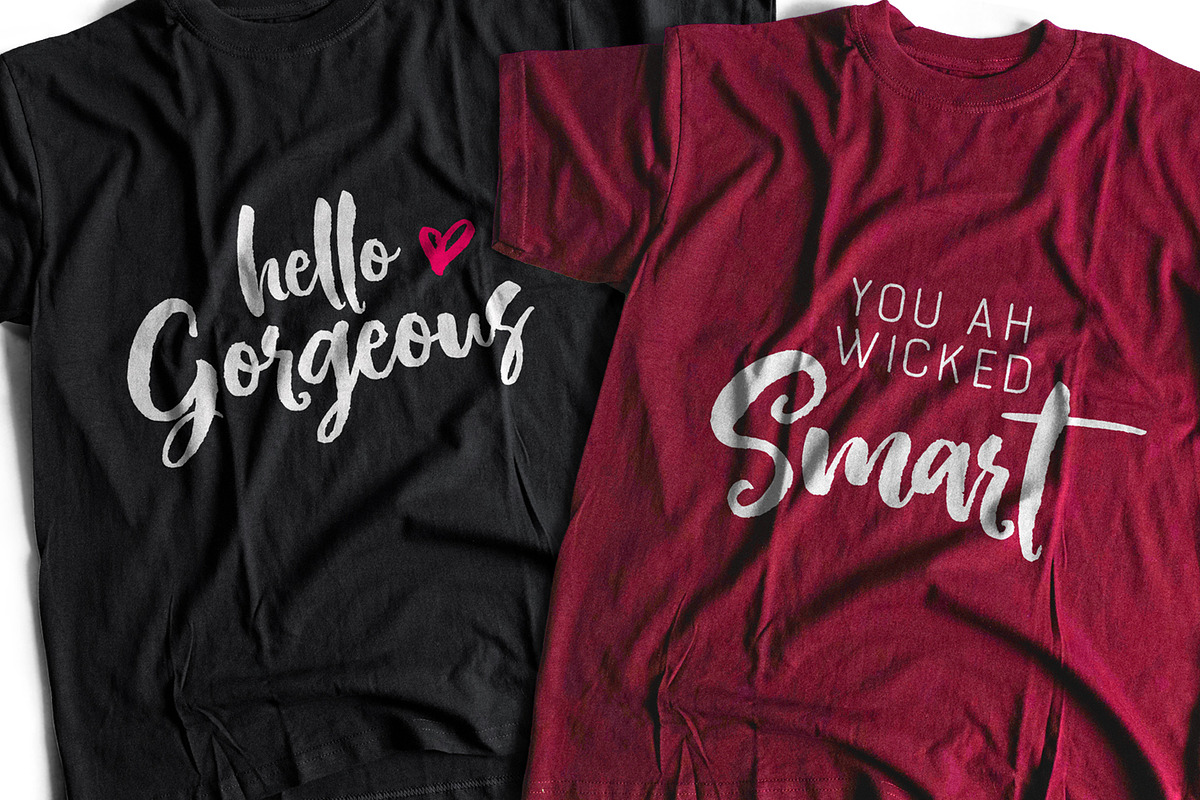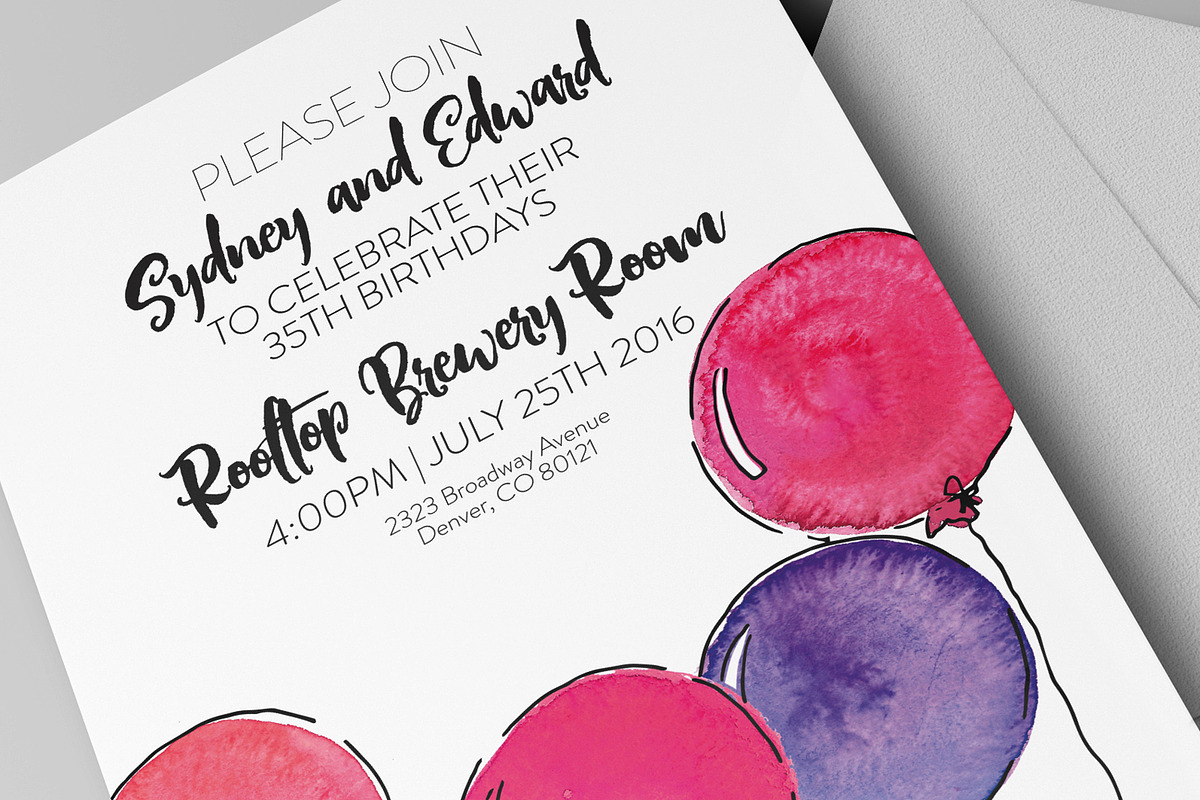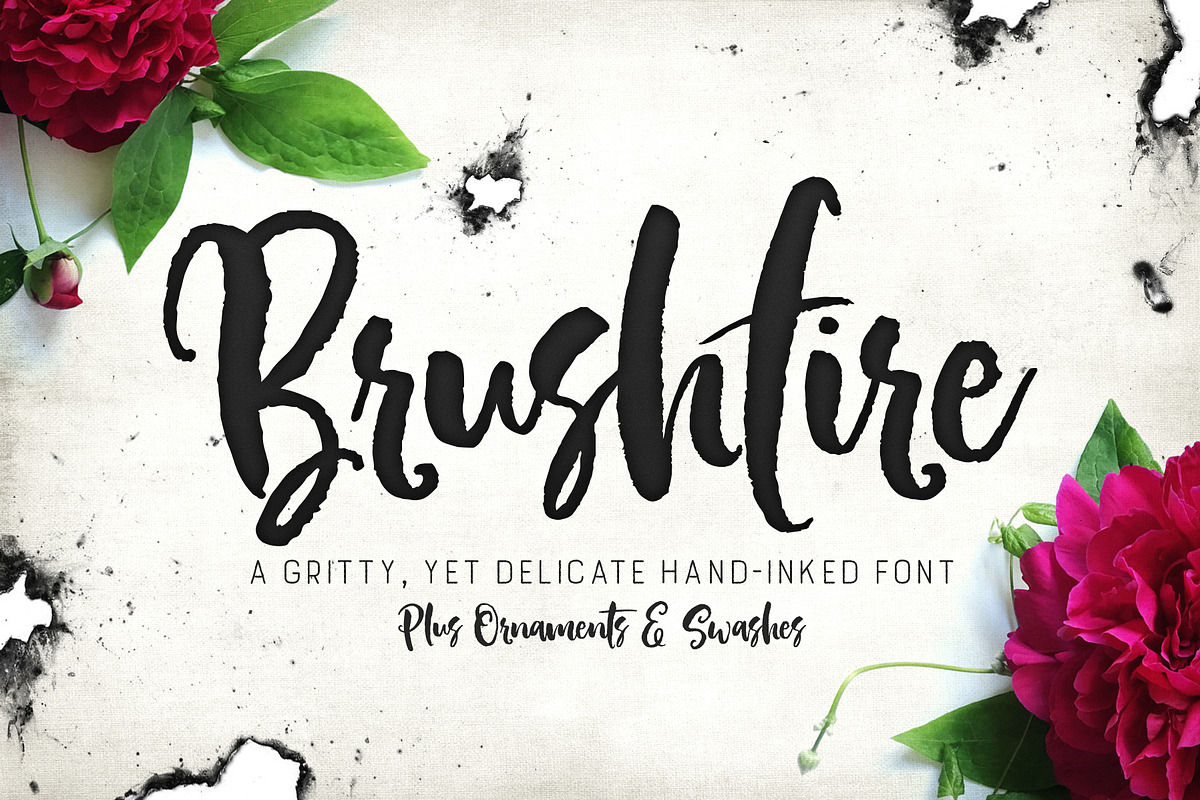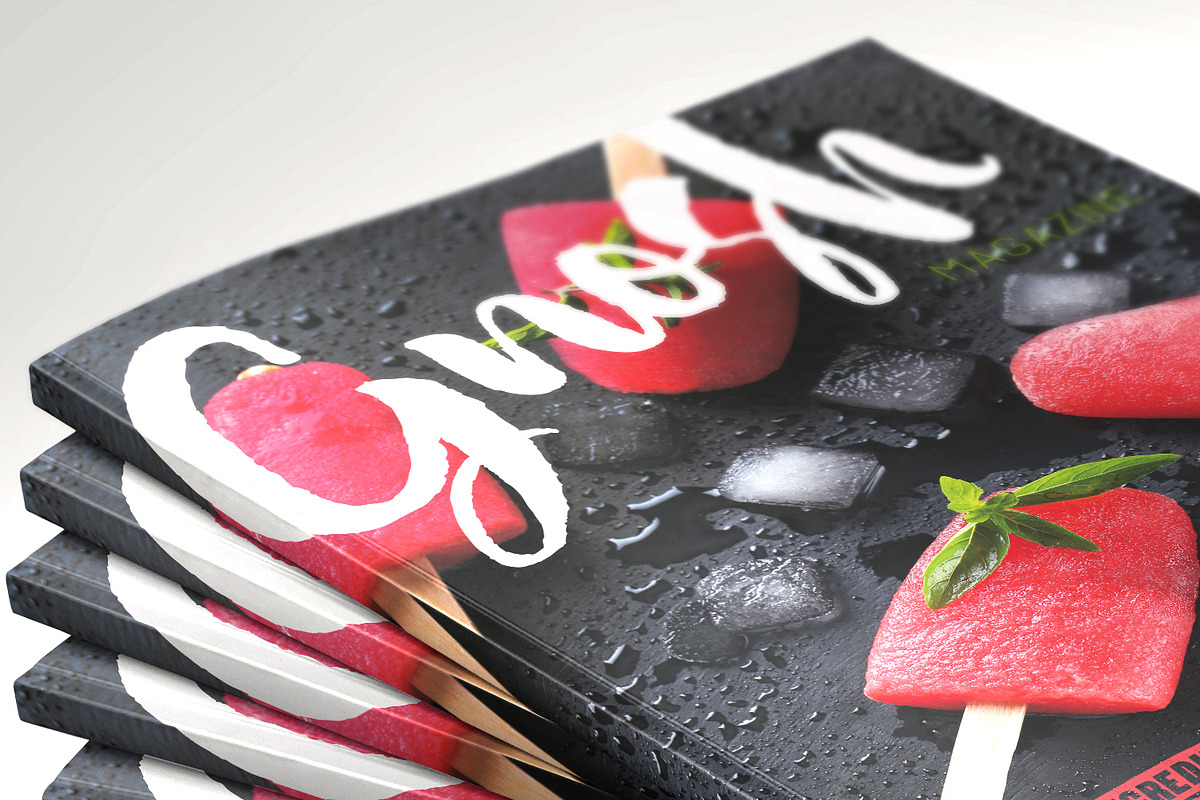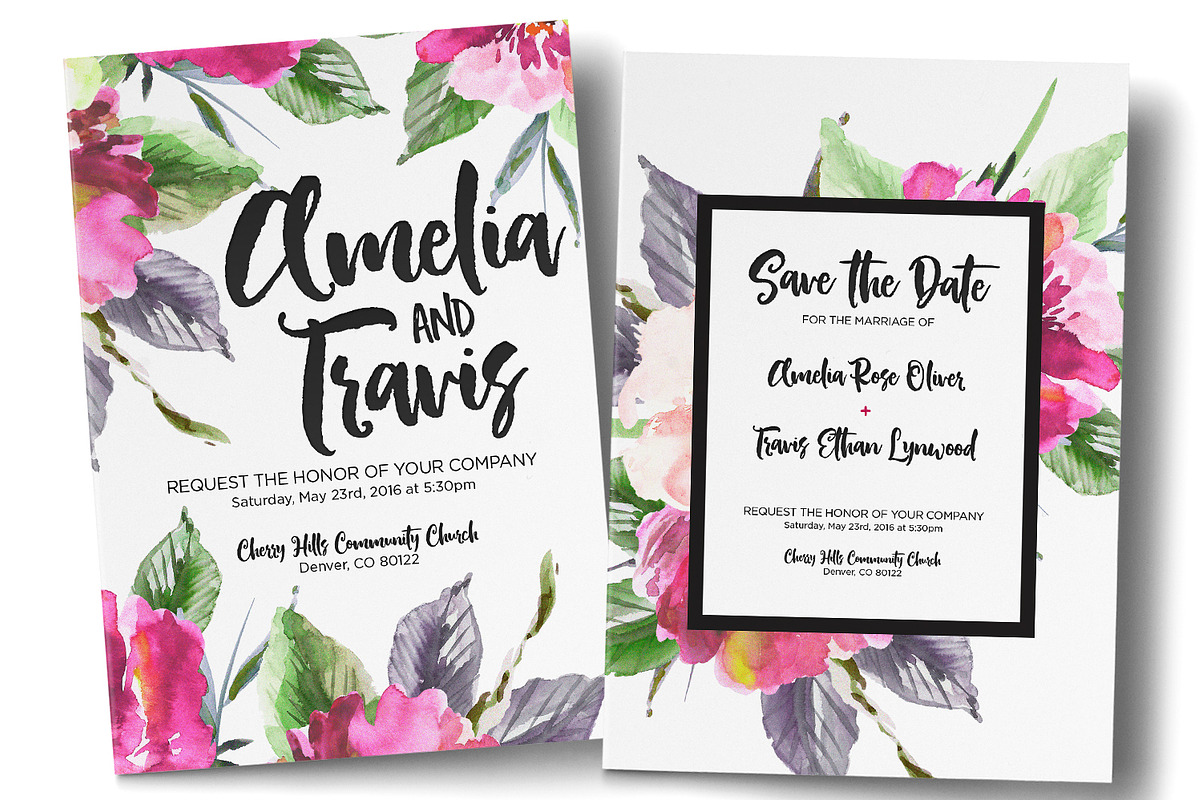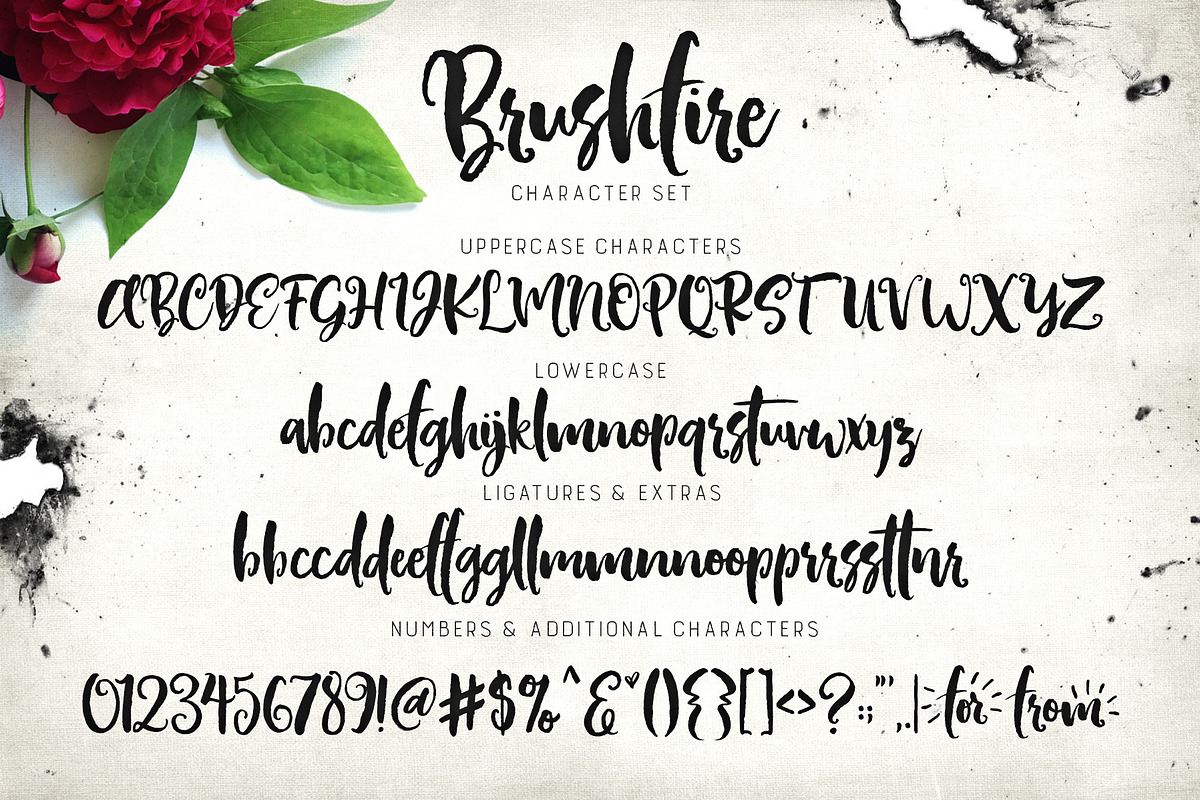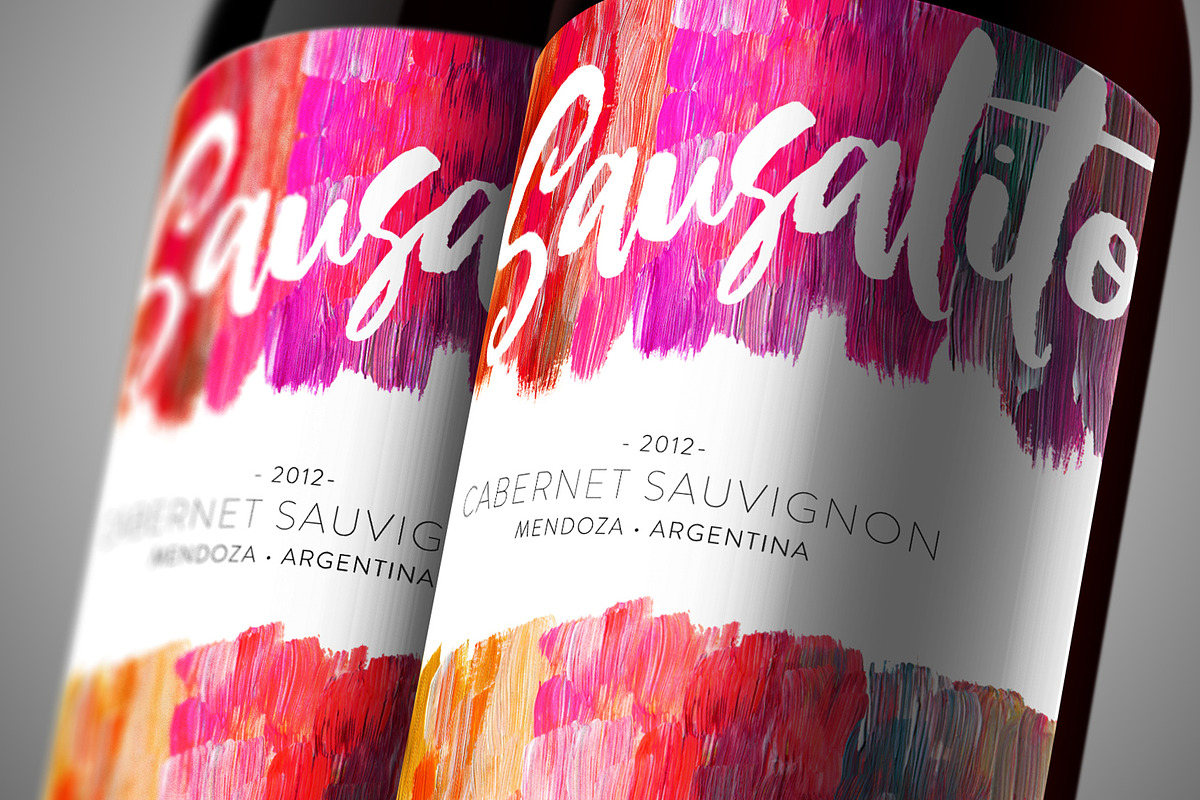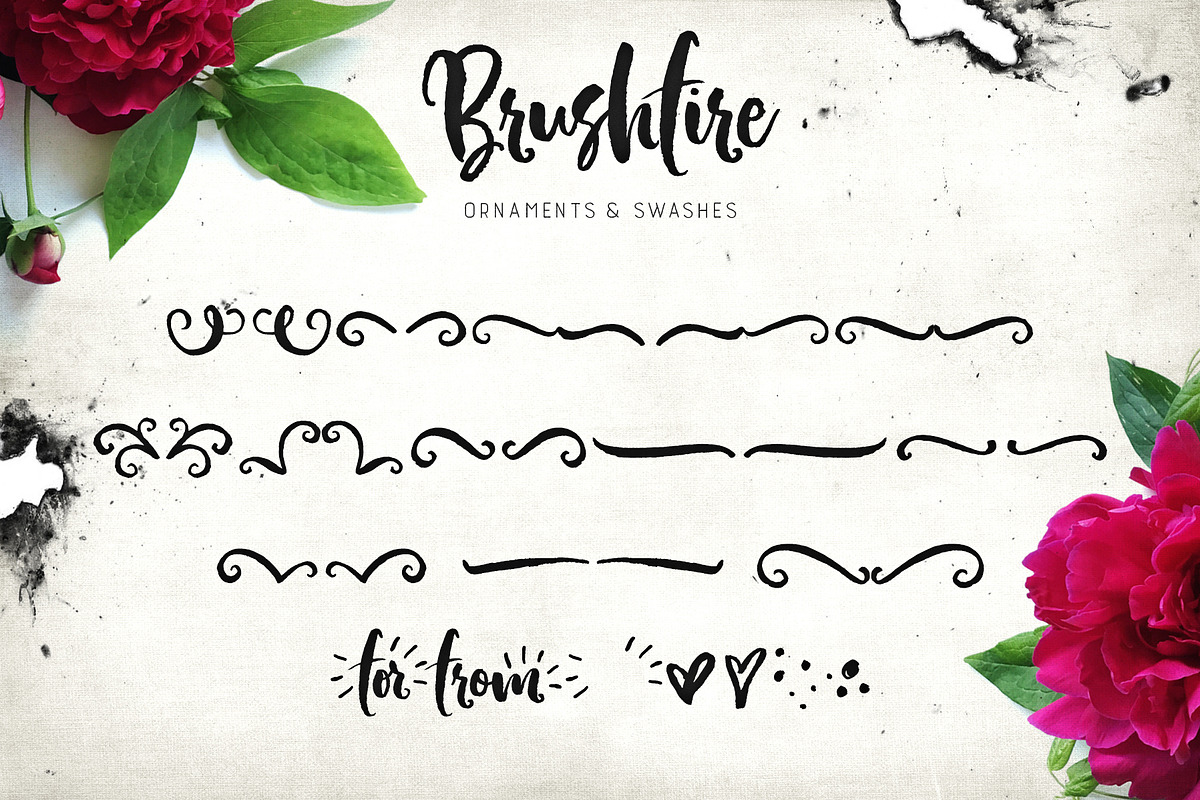
Brushfire Typeface + Extras
Brushfire Typeface + Extras by Callie Rian & Co. is a font selected for branding, posters, packaging, typography.
- Ligatures and Western European language support included
- 30 Additional Swashes and Ornaments (TTF & OTF files)
- Made with a super-fine art brush and thick watercolor ink, Brushfire is a blend of classic characters, and quick stokes for a unique set of
Brushfire Typeface + Extras by Callie Rian & Co. fits naturally into Branding, posters, packaging, typography.